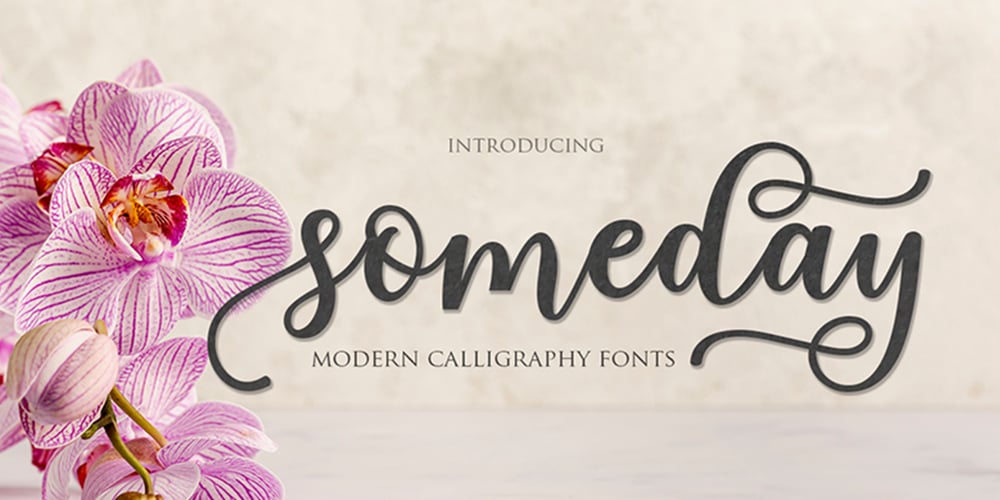
Someday
Someday font
Someday Font Family was designed by Muhammad Rizal and published by MrLetters. Someday contains 1 styles and family package options. Someday is perfect for branding, wedding invitations, magazines, mugs, business cards, quotes, posters, and many more that you can use on your big project to become very beautiful. Someday is equipped with the OpenType feature and has many glyphs. And of course having a lot of glyphs will be able to choose letters to your liking, lots of variations and choices for each letter, so you can customize your design choices and also support other languages. To use a variety of flying machines, you need a program that supports OpenType features such as Adobe Photoshop CS / Adobe Photoshop CC, Adobe Illustrator CS / Adobe Illustrator CC, Adobe Indesign and Corel Draw and many more programs that support OpenType. If you don’t have a program that supports OpenType, you can access all the alternate glyphs using Font Book (Mac) or Character Map (Windows) If you have any question, don’t hesitate to contact me by email. Thanks and happy designing 🙂 Thank You for your purchase.